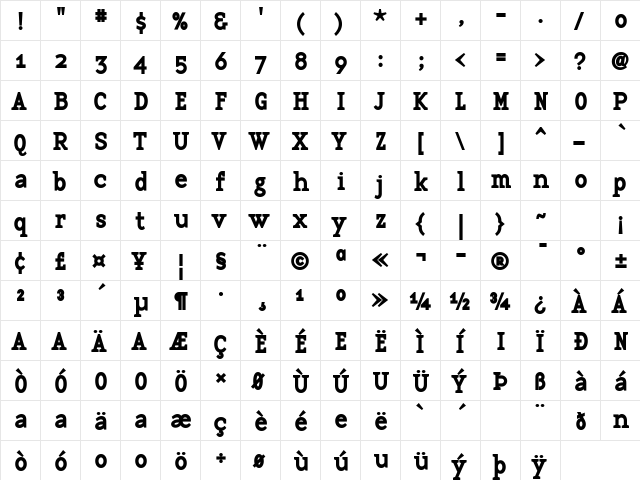
BaseTwelveSerif, Bold Regular Font Preview
BaseTwelveSerif, Bold Regular
BaseTwelveSerif, Bold Regular Font Details
Design Context for BaseTwelveSerif, Bold Typeface
BaseTwelveSerif, Bold brings classic typographic sensibility to the table — its serifs and measured letterforms reflect centuries of print heritage. Its bold stroke weight gives it real presence on the page.
Pro Tip: Set BaseTwelveSerif, Bold with slightly loose tracking in headlines to let each letterform's detail read clearly at display sizes.